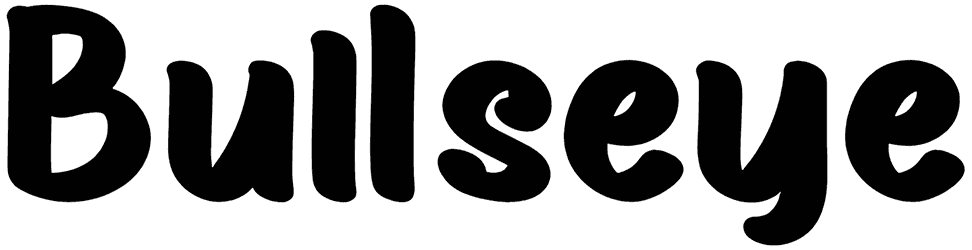
Bullseye Font
Bullseye, like other marker fonts, could be an excellent choice when you want to make something that stands out, such as comic books, branding, posters, or other designs. This gorgeous script font is bold and whimsical, giving your work a professional touch.
Designed by: Stefie justprince